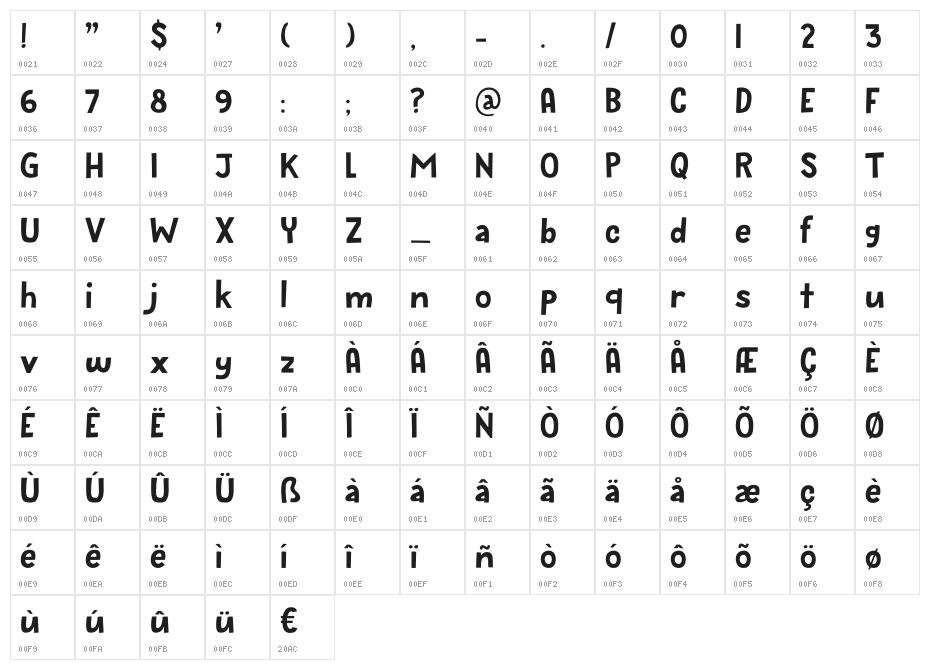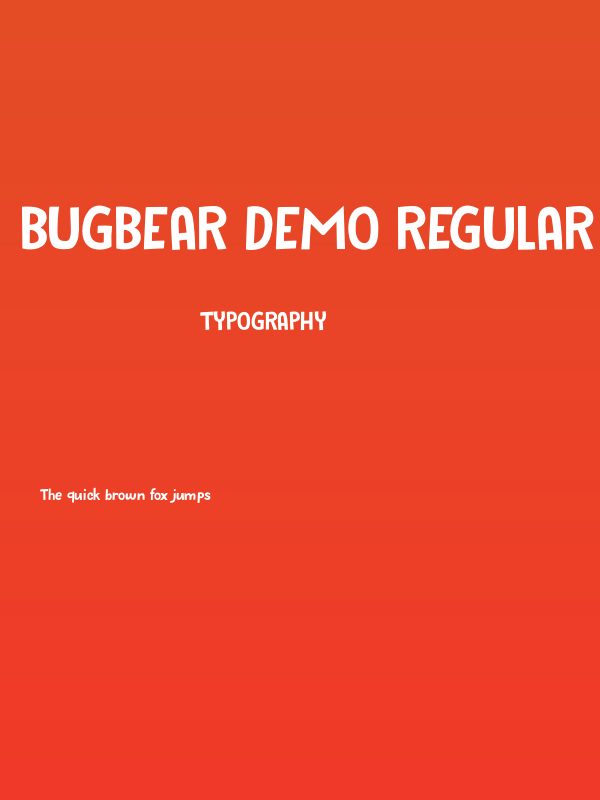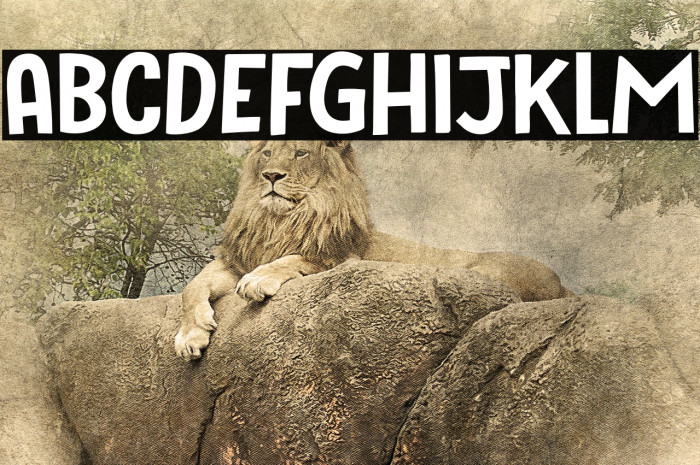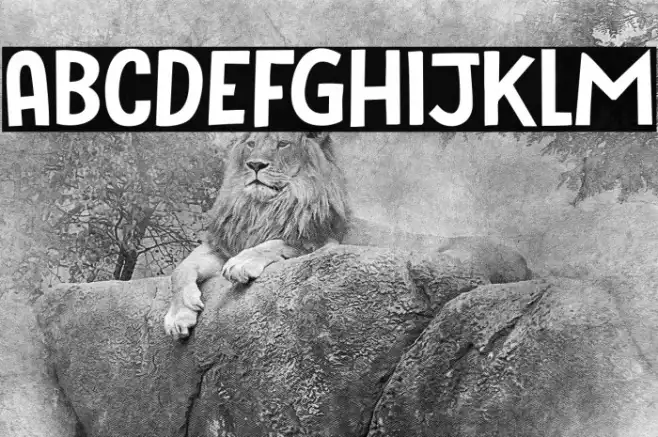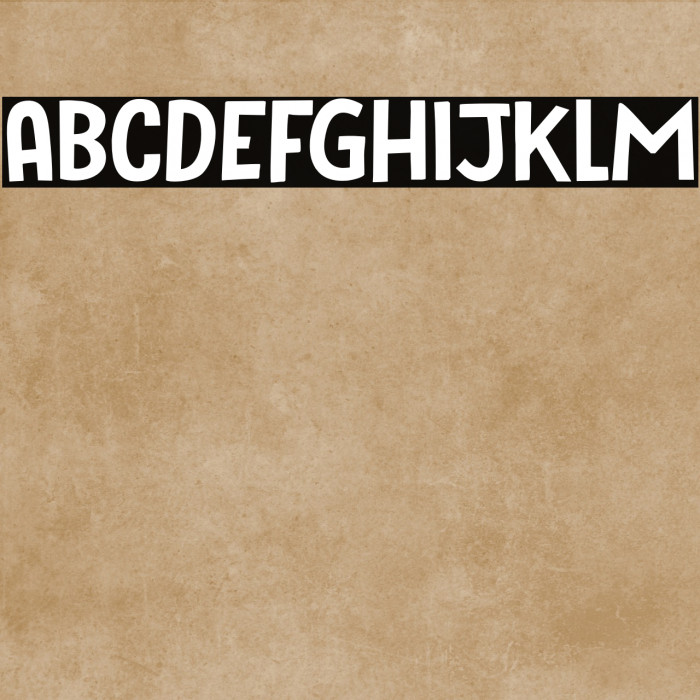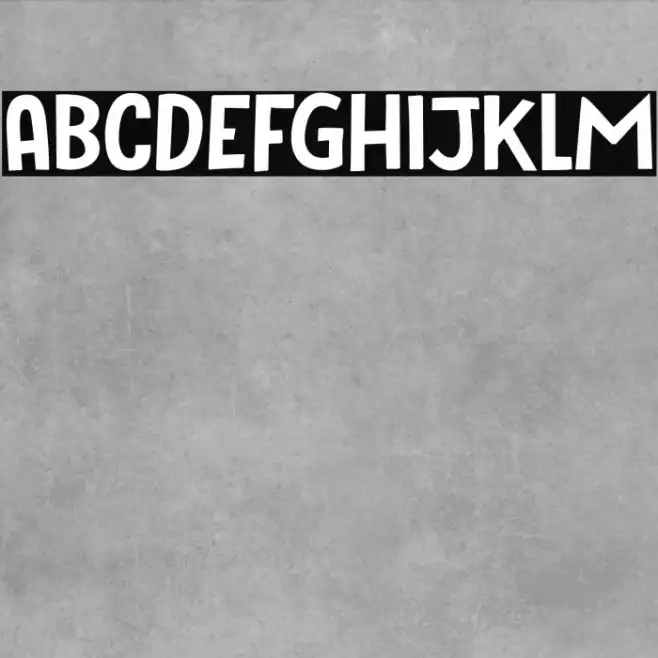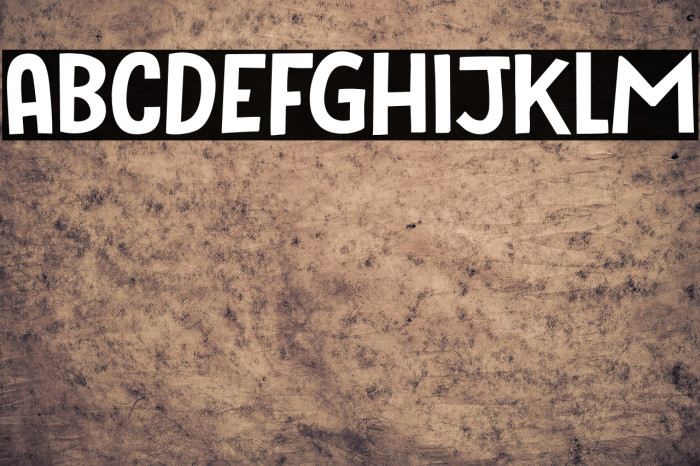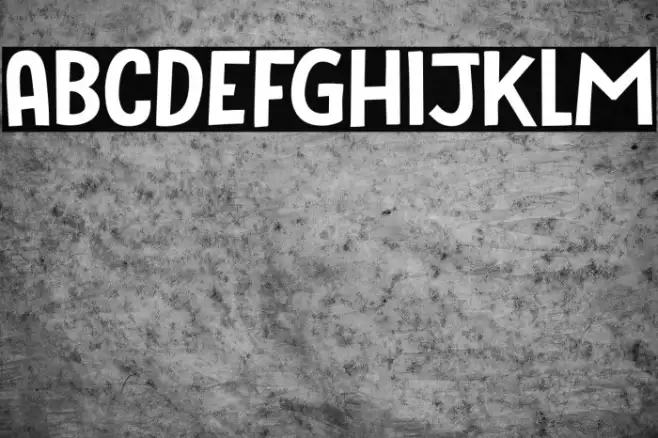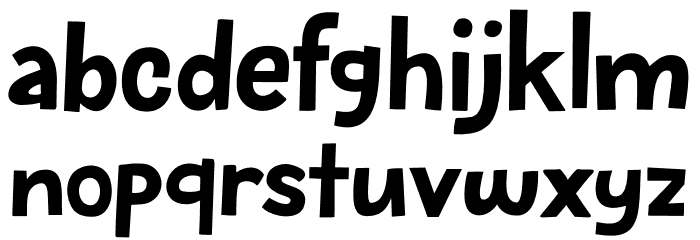
Bugbear DEMO Regular Font
Bugbear DEMO Regular Description
This playful and quirky font features bold, rounded characters with a whimsical touch. The uppercase letters are slightly irregular, adding a hand-drawn feel, while the lowercase letters maintain a consistent, friendly appearance. The numbers are bold and easy to read, and the special characters include charming, illustrative elements that enhance the font's unique personality. The overall design is approachable and fun, making it ideal for creative projects that require a touch of humor and individuality.